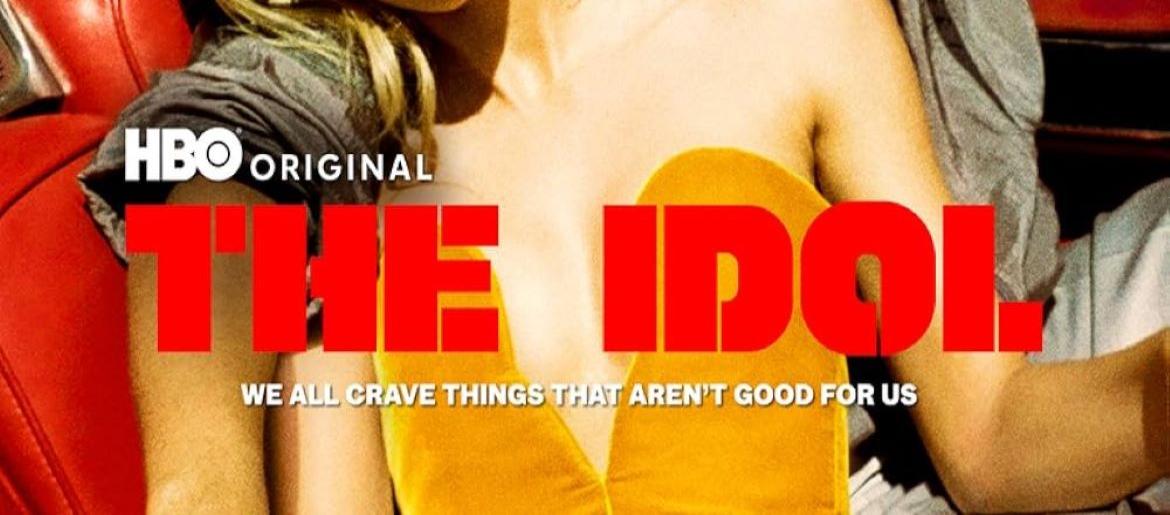
The Idol Font
What Font is The Idol?
The Idol Font captures the provocative and glamorous essence of HBO’s drama The Idol. Its typography reflects the show’s exploration of fame, control, and seduction — blending bold curves with vintage allure. The original font used in the logo is Mister Bones NF, a commercial typeface with an expressive, rebellious edge. However, a free replica font designed by Hiroshi Yamashita closely mirrors its distinctive style, making it ideal for fans and designers alike.
This font is perfect for music-related projects, editorial layouts, and branding that demands a daring, stylish tone. Like the series itself, The Idol Font exudes confidence, attitude, and undeniable allure.
About The Idol
The Idol (2023) is an HBO drama series created by Sam Levinson, Abel “The Weeknd” Tesfaye, and Reza Fahim. It stars Lily-Rose Depp and The Weeknd, exploring the dark, seductive world of celebrity, ambition, and manipulation.